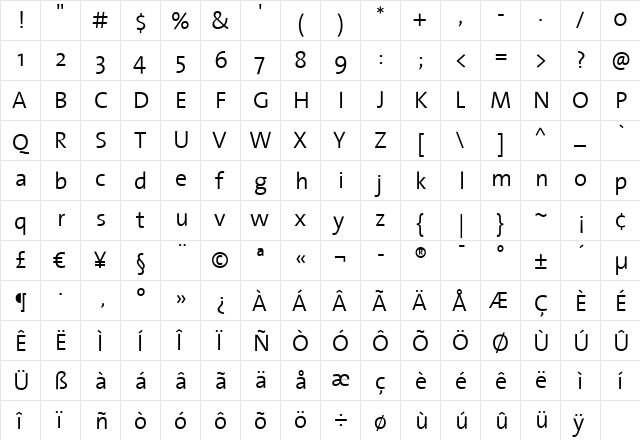
TheSans Light Font Preview
TheSans Light
TheSans Light Font Details
Design Context for TheSans Typeface
TheSans offers clean, dependable letterforms without strong stylistic allegiance, making it a practical choice for designers who need flexibility. Its slender proportions lend an understated elegance to any composition.
Pro Tip: Pair TheSans with a font of contrasting weight or personality to build a more expressive typographic hierarchy.